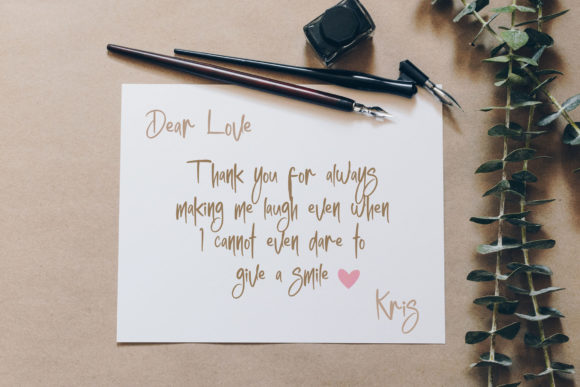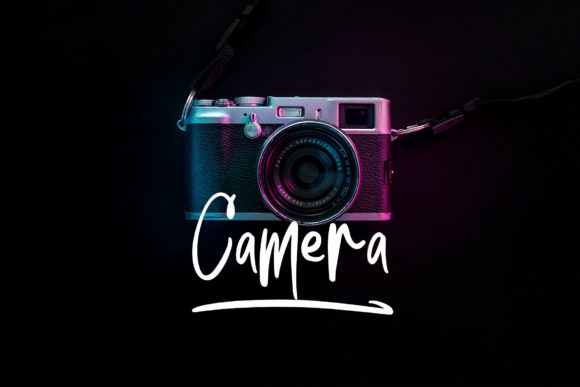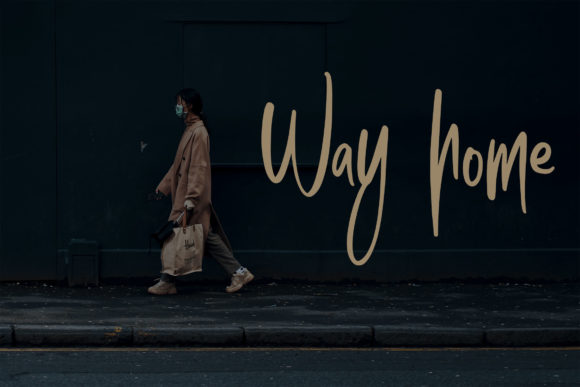
Sketchy Jumps - Handwritten Font
Sketchy Jumps is a beautiful handwritten font with a vintage feminine style. This font is perfect for designing magazine previews and covers design, logo designs, shirt designs, and other graphic needs.